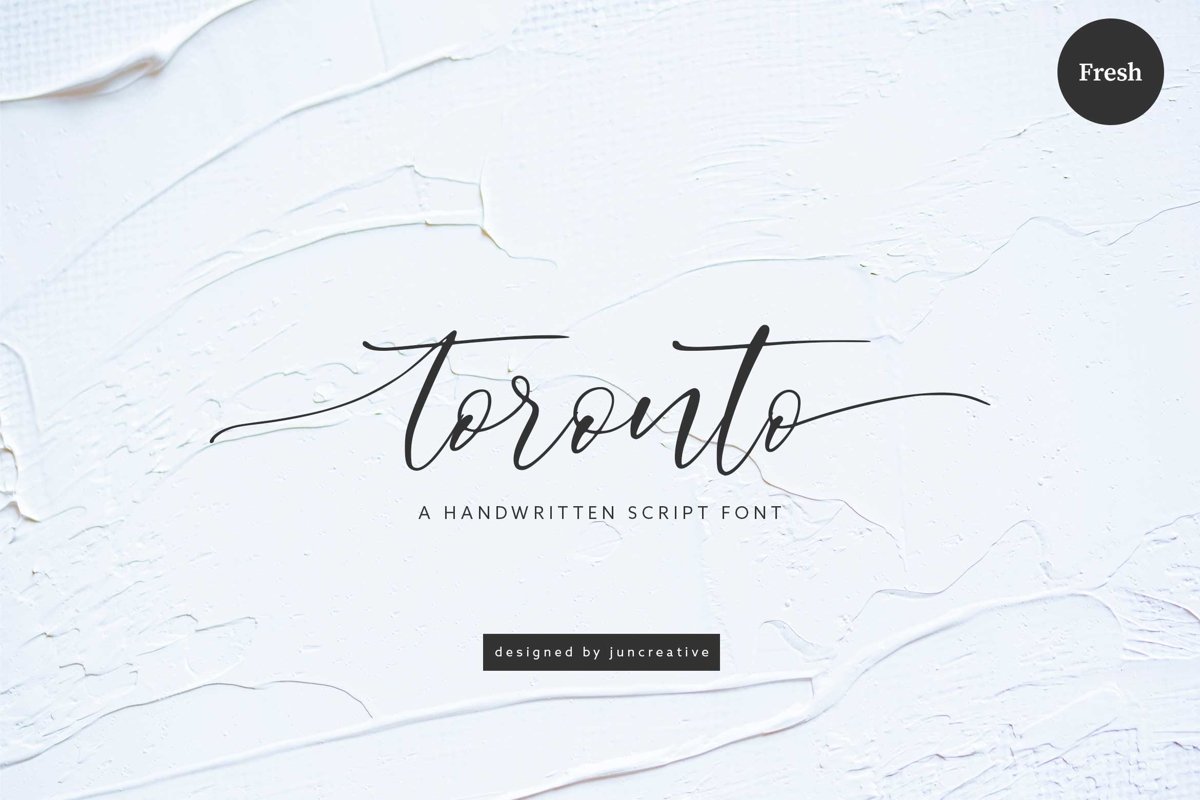
Toronto is a handwritten script font with casual chic flair. it is perfect fo branding, wedding invites and cards, and labelsToronto includes full set of lovely uppercase and lowercase letters, numerals, punctuation and ending lowercase.